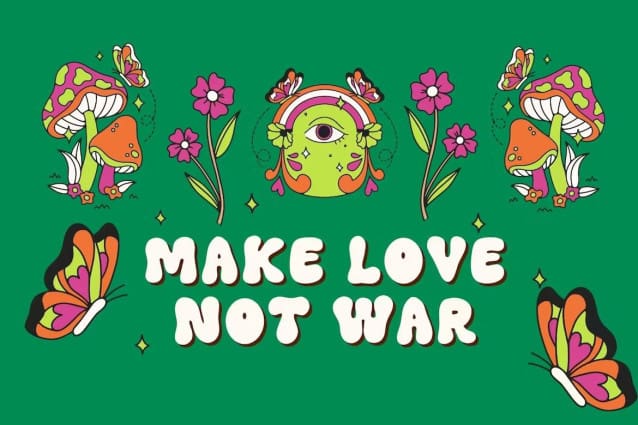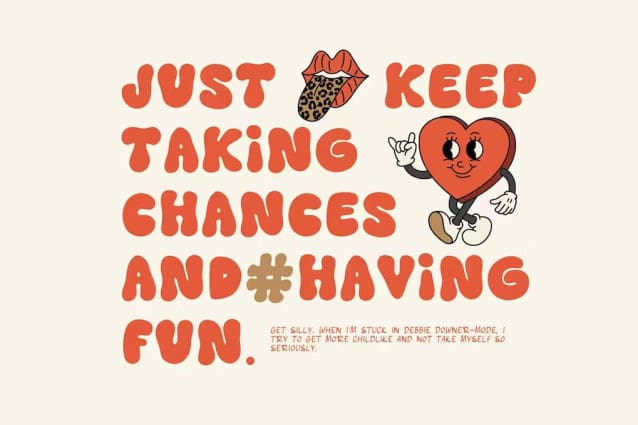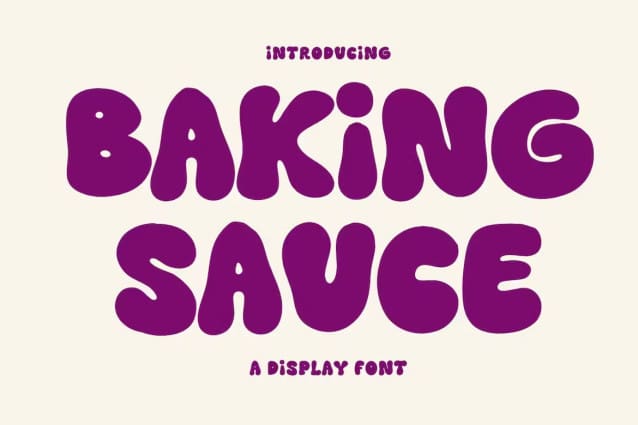
Baking Sauce Font
Baking Sauce Font, a retro-modern handwritten font that brings a delightful blend of nostalgia and contemporary style to your designs. Inspired by the carefree vibes of summers past, this font is fat, display-ready, and perfect for creating eye-catching posters, merchandise, and logos. With its bubbly letterforms and playful charm, it captures the essence of the 70s, 80s, and 90s, infusing your projects with a fun and whimsical energy. Whether you’re designing for a retro-themed event or simply want to add a touch of vintage flair, Baking Sauce is your go-to choice. Let your creativity flow with this vibrant and versatile font, and watch your designs come to life with a delightful dose of nostalgia.